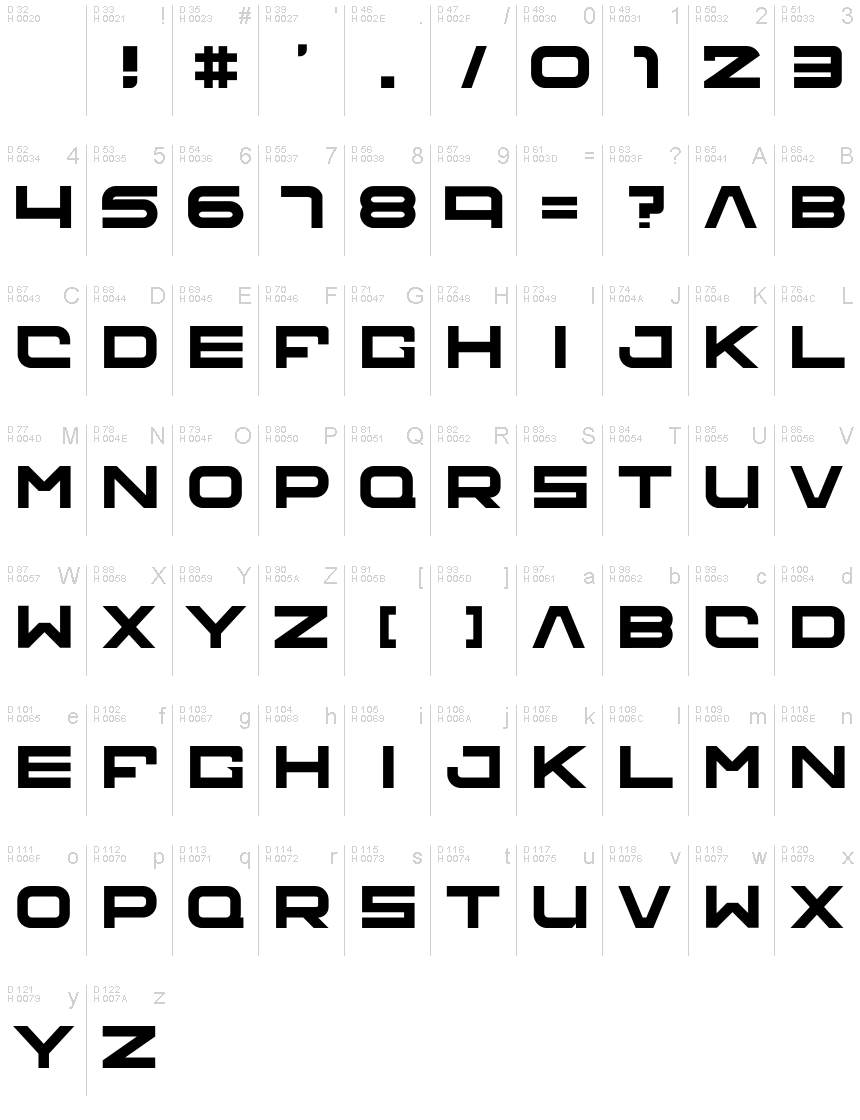
Airnt
Airnt, crafted by the visionary Sesohq, is a display font that breathes life into the techno style with its expanded character set and bold presence. This font is not just a typeface but a tribute to innovation, drawing inspiration from Sesohq's previous creations like Quantum and Aquire. Its futuristic and urban flair makes it stand out, offering a unique aesthetic that merges sharp angles with sleek lines.
The design of Airnt exudes modernity and strength, making it an ideal choice for branding projects, tech-themed advertisements, gaming interfaces, and any digital platform seeking to make a statement. As a 4-style showcase font, it provides versatility while maintaining its distinctive vibe across various applications. Whether used in large headers or as an accent piece for visual impact, Airnt captivates the viewer with its forward-thinking charisma and dynamic form.